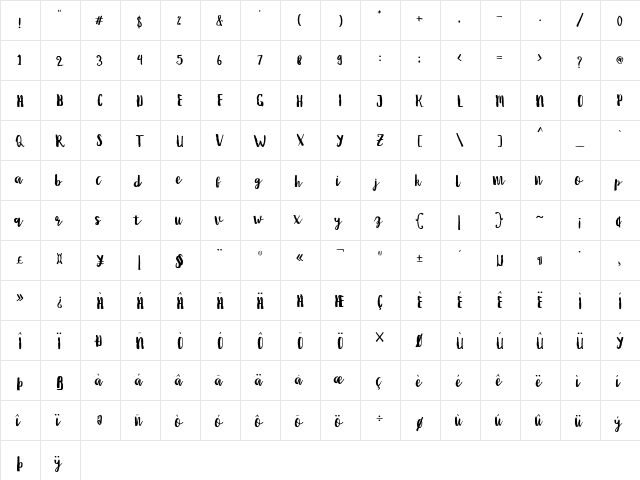
Debt Collectors Regular
Design Context for Debt Collectors Typeface
Debt Collectors is a composed and adaptable typeface that performs quietly and consistently across a wide range of design contexts.